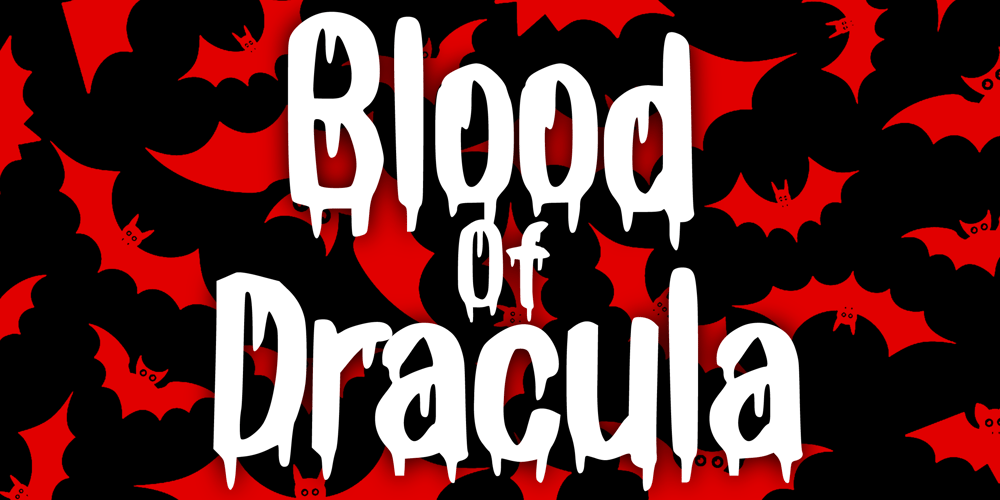
Blood Of Dracula 2.0
Blood Of Dracula 2.0 font
Blood Of Dracula 2.0 Font Family was designed by Gabriel Valentinus and published by Mvmet. Blood Of Dracula 2.0 contains 1 styles and family package options. Blood of Dracula 2.0 is a unique blood-dripping display font and now comes with new version which include English, French, German, Italian, and Spanish. It will be perfect for your horror and Halloween themed needs! You can use it for anything ranging from t-shirts and clothing, for your scary book designs, Halloween party needs, greeting cards, stickers, posters, banners, or anything that needs a horror touch. Try it to create fabulous designs and feel the horror and Halloween vibes with it!